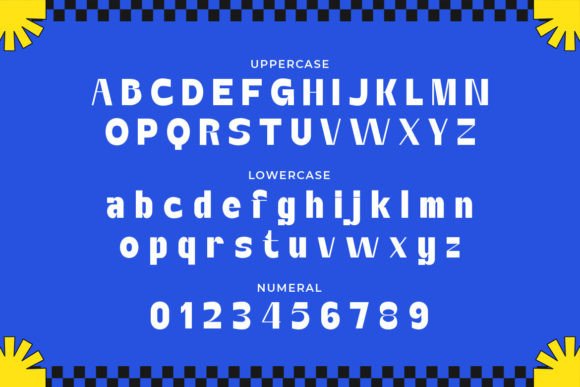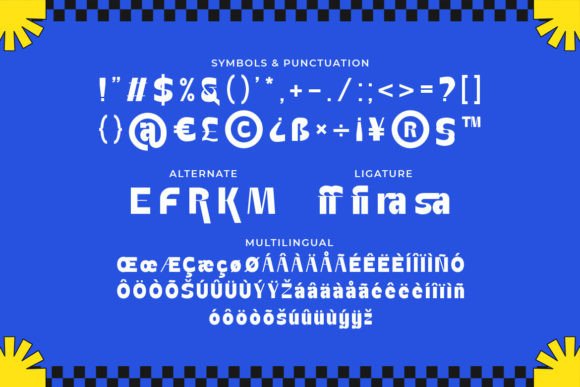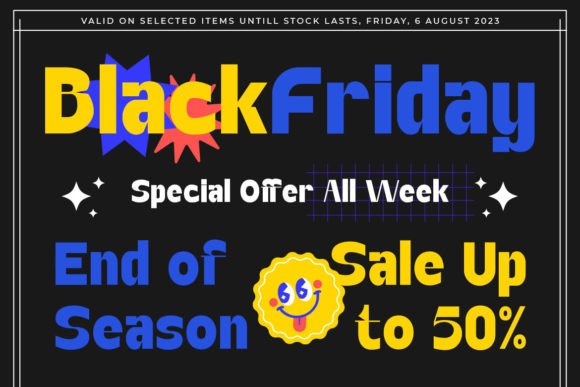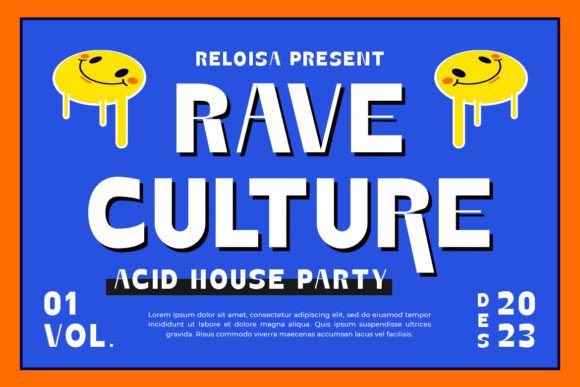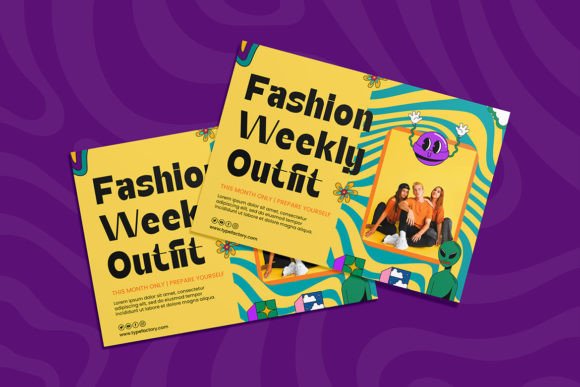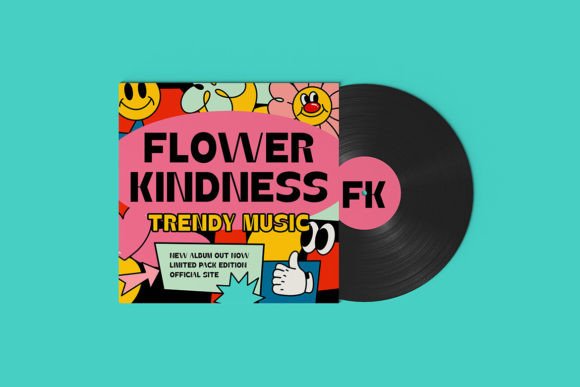
Introduction to Reloisa Font
Introducing “Reloisa” – a unique display font that stands out with its distinctive style and creative flair, perfect for making a bold statement in your designs.
With its unconventional letterforms and playful details, “Reloisa” offers versatility and originality, making it ideal for branding, posters, packaging, and more Embrace the individuality of “Reloisa” as it effortlessly enhances your designs with its eye-catching typography and artistic charm.
Key Features of Reloisa Font